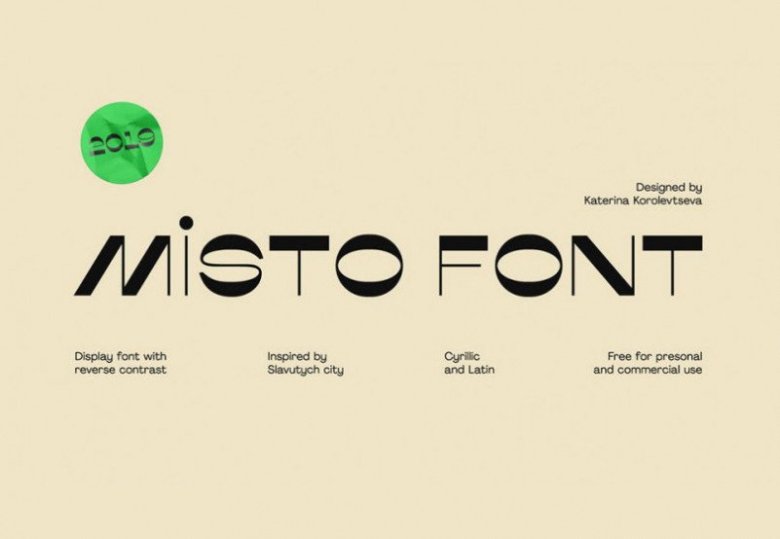
Misto Typeface
Hello world..!! Introducing Misto Font! It’s designed to be an extravagant display font for festival days. Its extra thin lines are well matching to huge headline sizes or the use of letter decoration. It’s designed and shared by Katerina Korolevtseva. It’s a free reverse-contrast display typeface inspired by Slavutych — the youngest city of Ukraine, which was born after the Chernobyl explosion. Misto font designed to work best in headlines, including logo design, brand identities, websites, packaging and posters. It supports both cyrillic and latin versions.Misto Typeface is free for personal & commercial use. Please download and enjoy, or can search more similar fonts on befonts.